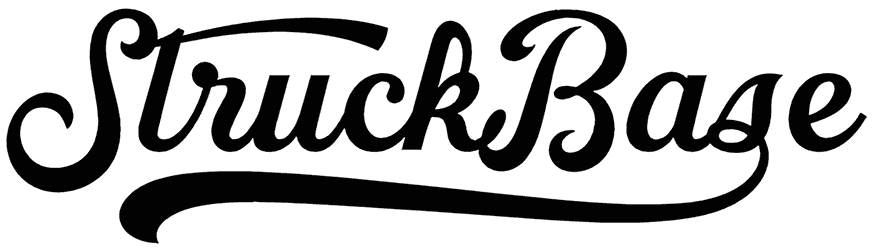
Struck Base Font
Struck Base is a fancy font with elongated and rounded edges that has a classic and luxury look, so it can convey a sense of vintage, nostalgia, and personalization to viewers. Professional graphic designers would rather…
Struck Base is a fancy font with elongated and rounded edges that has a classic and luxury look, so it can convey a sense of vintage, nostalgia, and personalization to viewers. Professional graphic designers would rather use this old-school font, despite lacking numbers, in designing posters, logos, brochures, and presentations.
Example: Striker_
Write several underscores to make swashes of different lengths.
Example: Baseball________